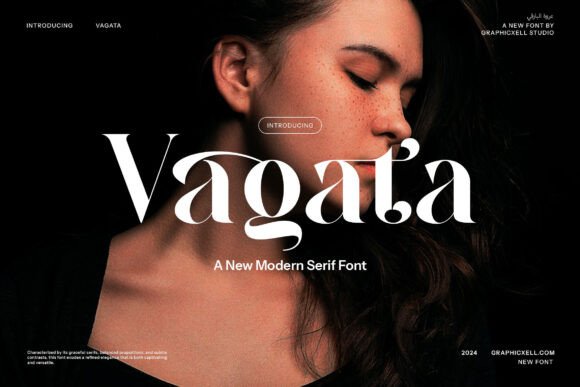
Vagata: A Serif Font with Elegance and Readability
There’s a moment in editorial design when you’re staring at a blank page, trying to decide which font will anchor your project. For a lifestyle blog redesign, the choice of typeface can make or break the overall feel. I recently found myself in that situation, selecting a cover font for a new print-and-digital magazine. After testing several options, I settled on Vagata. It wasn’t just about aesthetics—it was about how the font supported the content, guided the reader’s eye, and reinforced the publication’s identity.
The Visual Character of Vagata
Vagata is a modern serif typeface that blends sophistication with charm. Its delicate curves and elegant style give it a refined appearance that feels both timeless and contemporary. The font carries a soft rhythm, making it visually appealing without overwhelming the reader. It’s not just about looking good; it’s about feeling right. Whether used in a blog header or a newsletter graphic, Vagata adds a touch of elegance that complements a wide range of editorial themes.
What makes Vagata stand out is its balance between expressiveness and readability. Unlike some display fonts that can be too ornate, Vagata maintains clarity even in larger sizes. This makes it ideal for titles, pull quotes, and section headings where visual impact is key but legibility cannot be compromised.
Editorial Uses for Vagata
In my recent work on a lifestyle blog redesign, I used Vagata for the main title and featured headers. The font’s sophisticated look aligned perfectly with the blog’s aesthetic—modern yet approachable. It helped establish a consistent brand identity while allowing the content to breathe. For a recipe ebook, I tested Vagata as a cover font and found it added a sense of luxury without overshadowing the practical content inside.
Vagata also works well in digital magazine layouts. When paired with a clean sans-serif body font, it creates a harmonious contrast that enhances readability. In a wedding guide I designed, Vagata was used for chapter openers and decorative accents, adding a touch of refinement without distracting from the essential information.
For printable planners and course PDFs, Vagata’s elegant curves make it a great choice for headers and section titles. It brings a level of polish that elevates the overall design, especially when used alongside a more functional body font. However, it’s important to note that Vagata is not suited for dense body copy or small captions due to its expressive nature.
Readability and Practical Considerations
Readability is a crucial factor in any editorial layout. While Vagata excels in headlines and pull quotes, it may not be the best choice for long-form content. The font’s delicate curves can sometimes make it challenging to read in smaller sizes or on low-resolution screens. That said, with proper spacing and contrast, it performs admirably in most digital and print environments.
When using Vagata in mobile layouts or web designs, ensure that the font scales well and remains legible across different screen sizes. For PDF exports, test the font’s performance in various formats to maintain consistency. In print materials, consider the weight and texture of the paper to complement the font’s refined character.
Font Pairing and Design Strategy
Pairing Vagata with other fonts can enhance its strengths and balance its expressive qualities. For body copy, pairing it with a readable serif or sans-serif font creates a strong visual hierarchy. For example, using a clean sans-serif like Montserrat for captions and navigation complements Vagata’s elegance without competing for attention.
In editorial design, it’s essential to consider the full set of styles and alternates included with the font. Check for ligatures, weights, and multilingual support to ensure versatility in your projects. Also, verify the commercial font licensing before using it in paid newsletters, client publications, or digital downloads.
Vagata is a premium font that offers both beauty and functionality. It’s perfect for creating a distinctive brand identity while maintaining readability and accessibility. Whether you’re designing a newsletter header, a course PDF, or a printable planner, Vagata has the potential to elevate your editorial design with its sophisticated charm and elegant structure.